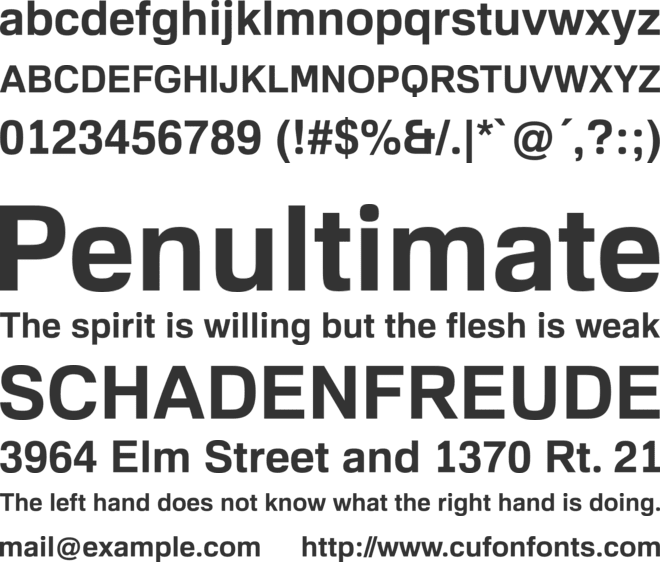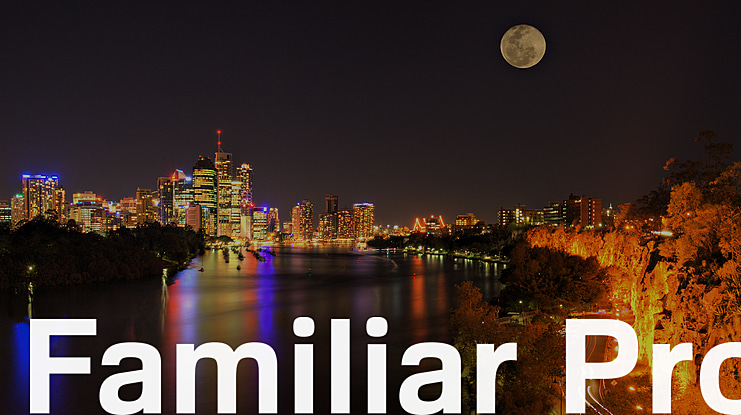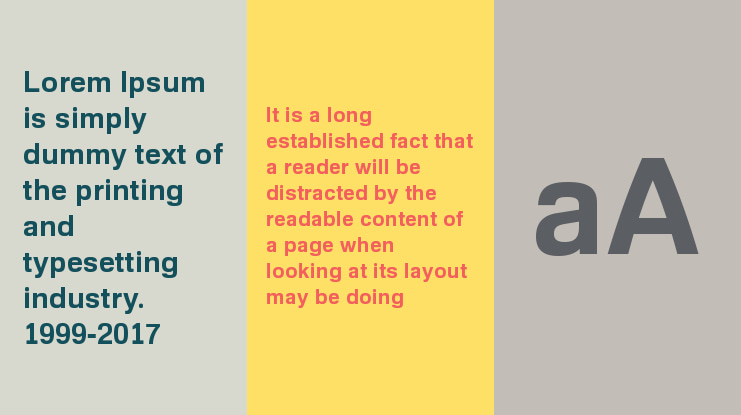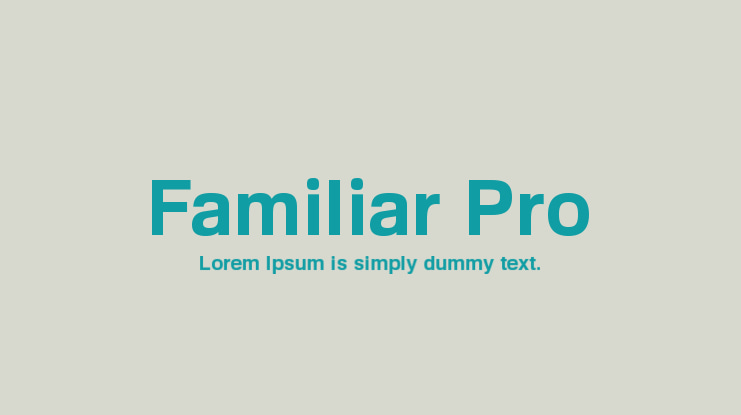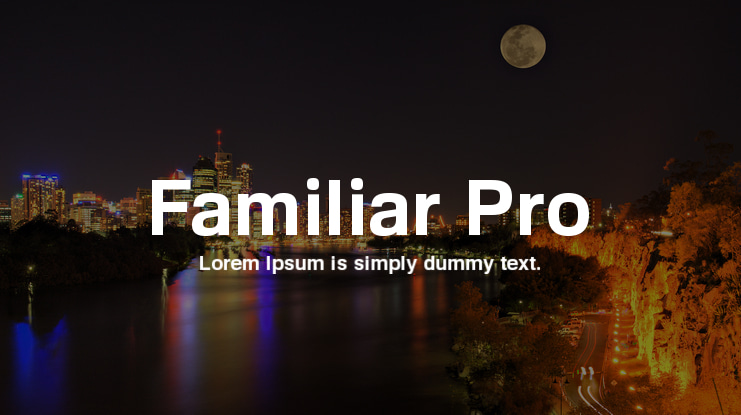
This family was inspired by a Type Battle over at Typophile: How would you design a font metrically compatible with Helvetica, but better than Arial? Working with preset letter widths was an interesting constraint, both a relief and a limitation at the same time.
I have done all the 4 basic weights, and the skewed obliques has been optically adjusted. The letters have been designed quite close to the german/swiss grotesk tradition, but by using super-elliptical rounds, rounded dots and slightly curved outer diagonals the end result is a friendly looking font family that still looks... familiar.
They contain some unusual diacritic letters (some of which are contained in the Latin Extended-B Unicode block) supporting: Cornish, Filipino (Tagalog), Guarani, Luxembourgian, Malagasy, Romanian, Ulithian and Welsh.
They also contain all glyphs in the Latin Extended-A Unico de block (which among others cover the Central European and Baltic areas) supporting: Afrikaans, Belarusian (Lacinka), Bosnian, Catalan, Chichewa, Croatian, Czech, Dutch, Esperanto, Greenlandic, Hungarian, Kashubian, Kurdish (Kurmanji), Latvian, Lithuanian, Maltese, Maori, Polish, Saami (Inari), Saami (North), Serbian (latin), Slovak(ian), Slovene, Sorbian (Lower), Sorbian (Upper), Turkish and Turkmen.
And they of course contain all the usual “western” glyphs supporting: Albanian, Basque, Breton, Chamorro, Danish, Estonian, Faroese, Finnish, French, Frisian, Galican, German, Icelandic, Indonesian, Irish (Gaelic), Italian, Northern Sotho, Norwegian, Occitan, Portuguese, Rhaeto-Romance, Sami (Lule), Sami (South), Scots (Gaelic), Spanish, Swedish, Tswana, Walloon and Yapese.